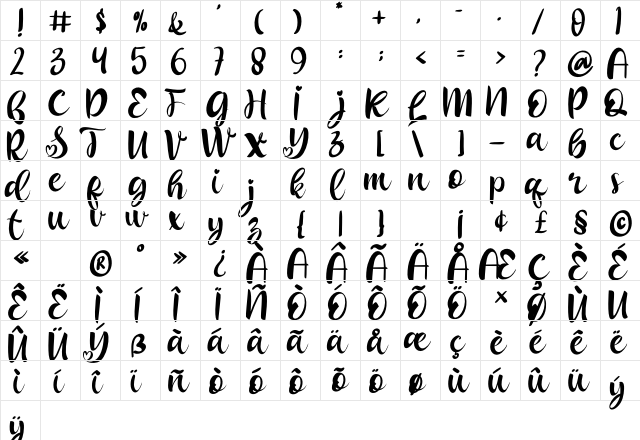
Yellow Playlist Regular
| Designer | Agni Ardi Rein Prasetyo |
Design Context for Yellow Playlist Typeface
Yellow Playlist is a composed and adaptable typeface that performs quietly and consistently across a wide range of design contexts.